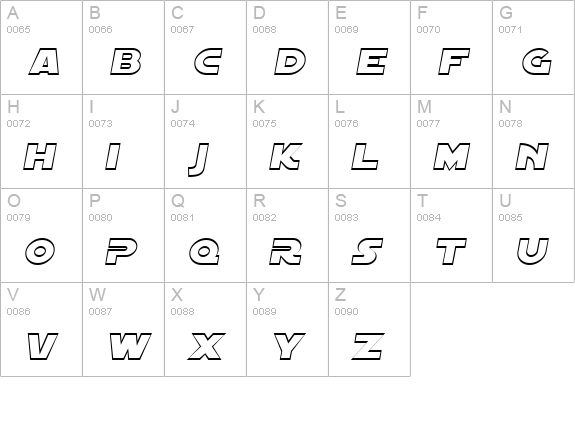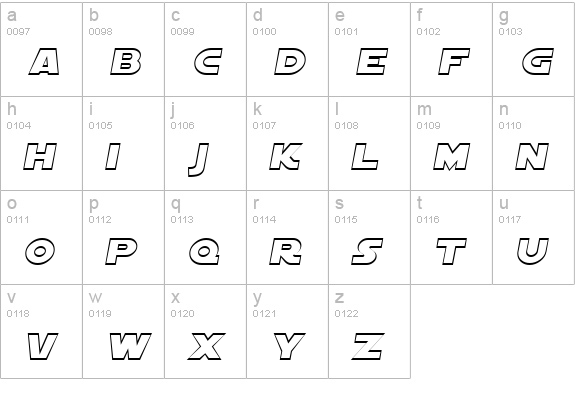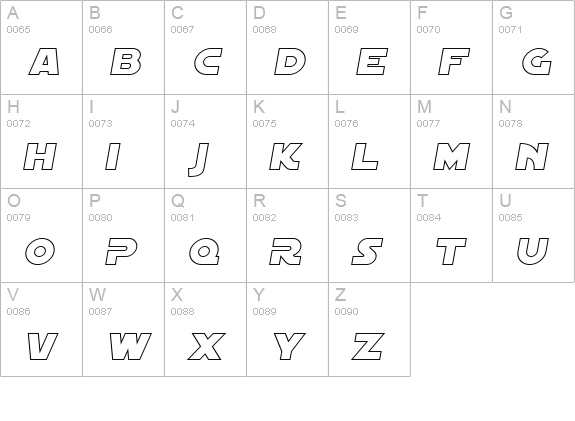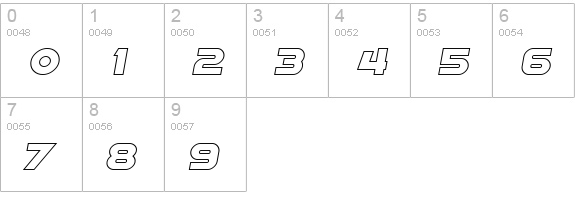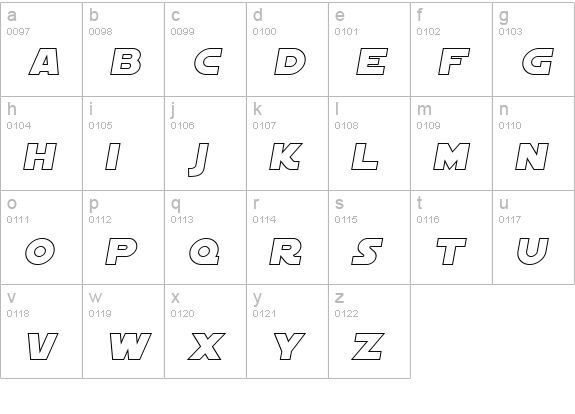
SF Distant Galaxy Outline Italic is a distinctive, italic variant in the SF typeface family \xE2\x80\x94 well suited to design and typography projects.
Introducing SF Distant Galaxy Outline Italic font, a captivating and futuristic typeface that will transport your designs to galaxies far, far away. With its sleek and angular letterforms, this font exudes an otherworldly charm that is perfect for projects seeking a touch of sci-fi sophistication. SF Distant Galaxy Outline Italic font boasts a unique blend of sharp edges and subtle curves, creating a harmonious balance between modernity and elegance. Its italicized form adds a dynamic and dynamic touch to any text, effortlessly capturing attention and conveying a sense of movement. Whether you're designing a poster for a sci-fi convention, creating captivating book covers, or crafting eye-catching headlines for your website, SF Distant Galaxy Outline Italic font will add a touch of interstellar magic to your compositions. As a bonus, SF Distant Galaxy Outline Italic font is also available for free download at FontsMarket.com. This means that you can easily access this mesmerizing typeface and use it in all your personal and commercial projects without any limitations. So, explore the vastness of design possibilities and let your imagination soar with SF Distant Galaxy Outline Italic font, freely available for download at FontsMarket.com.